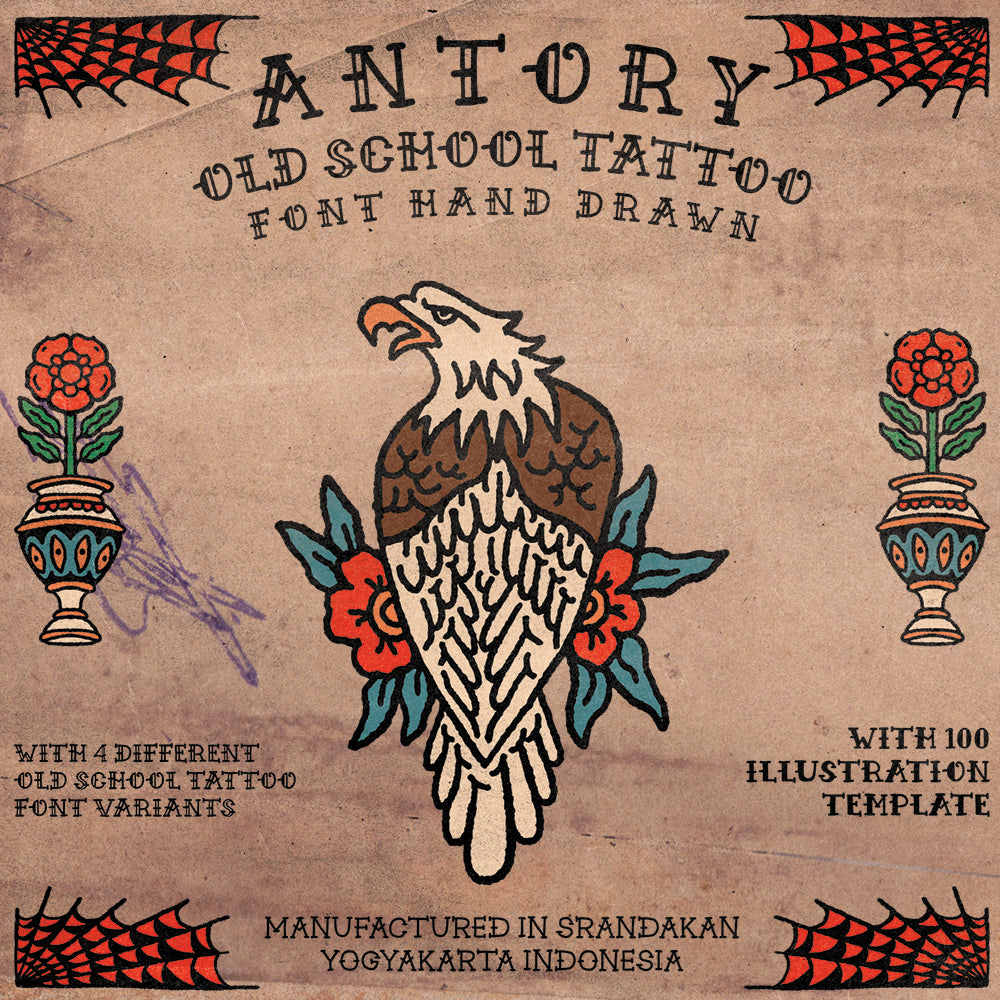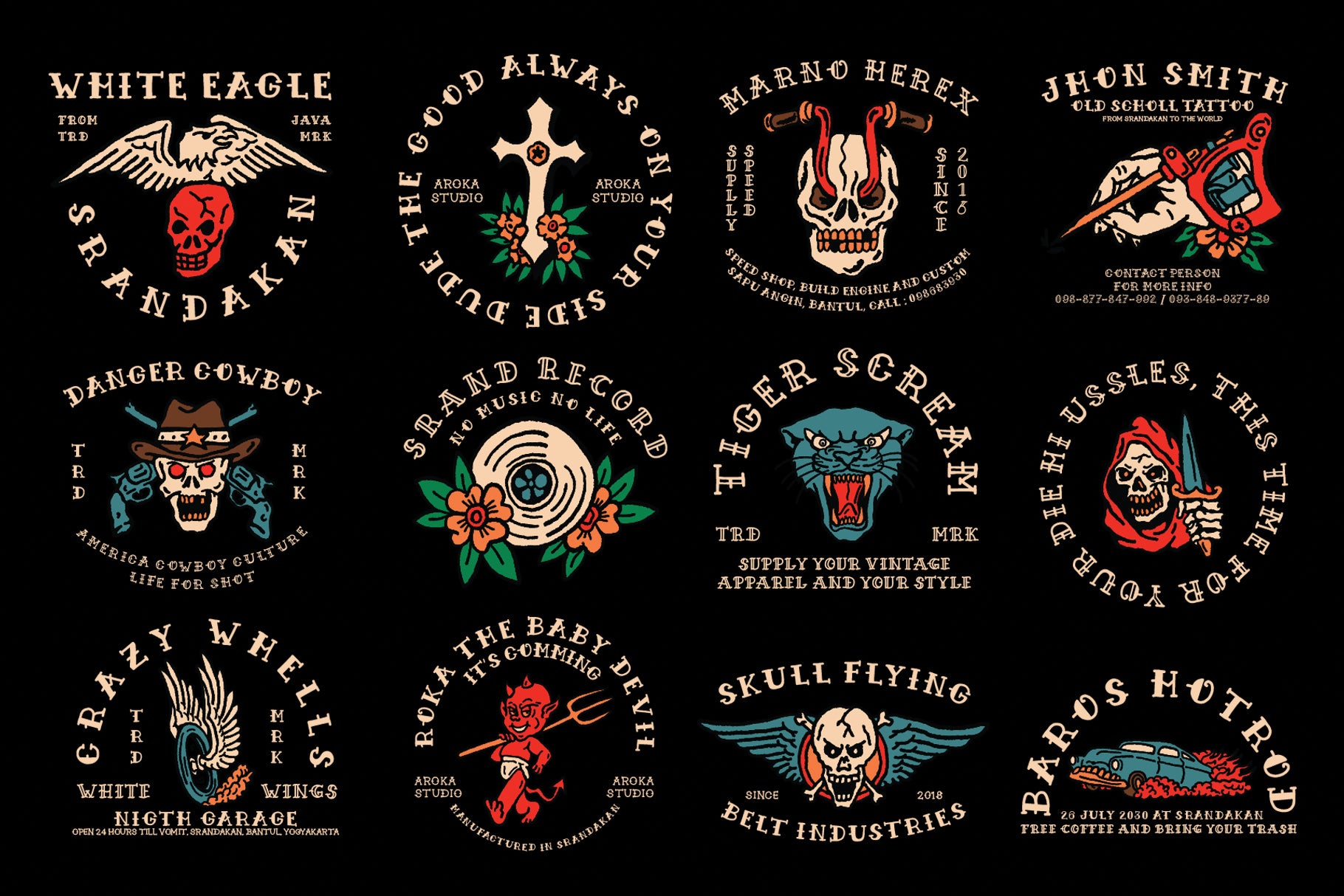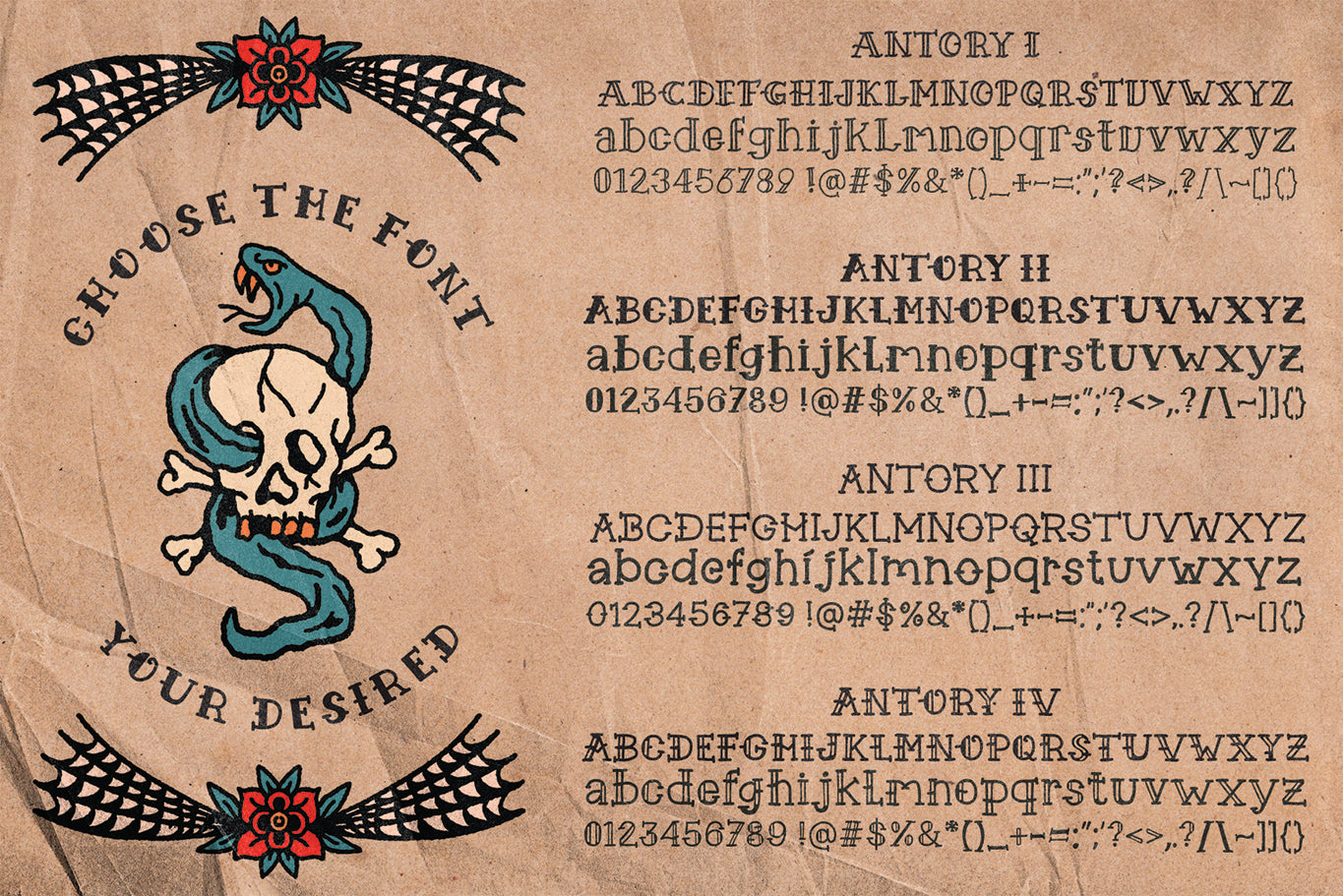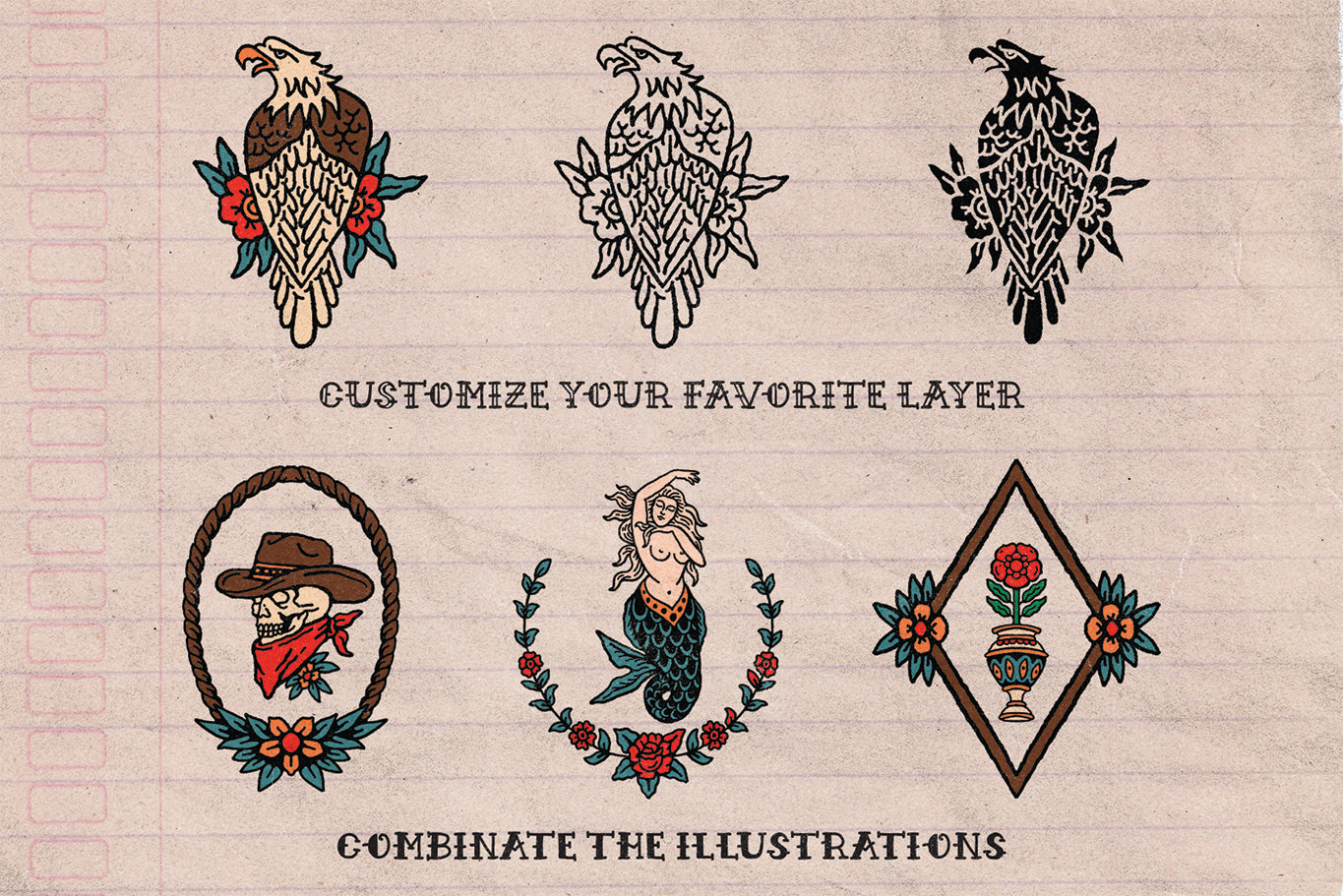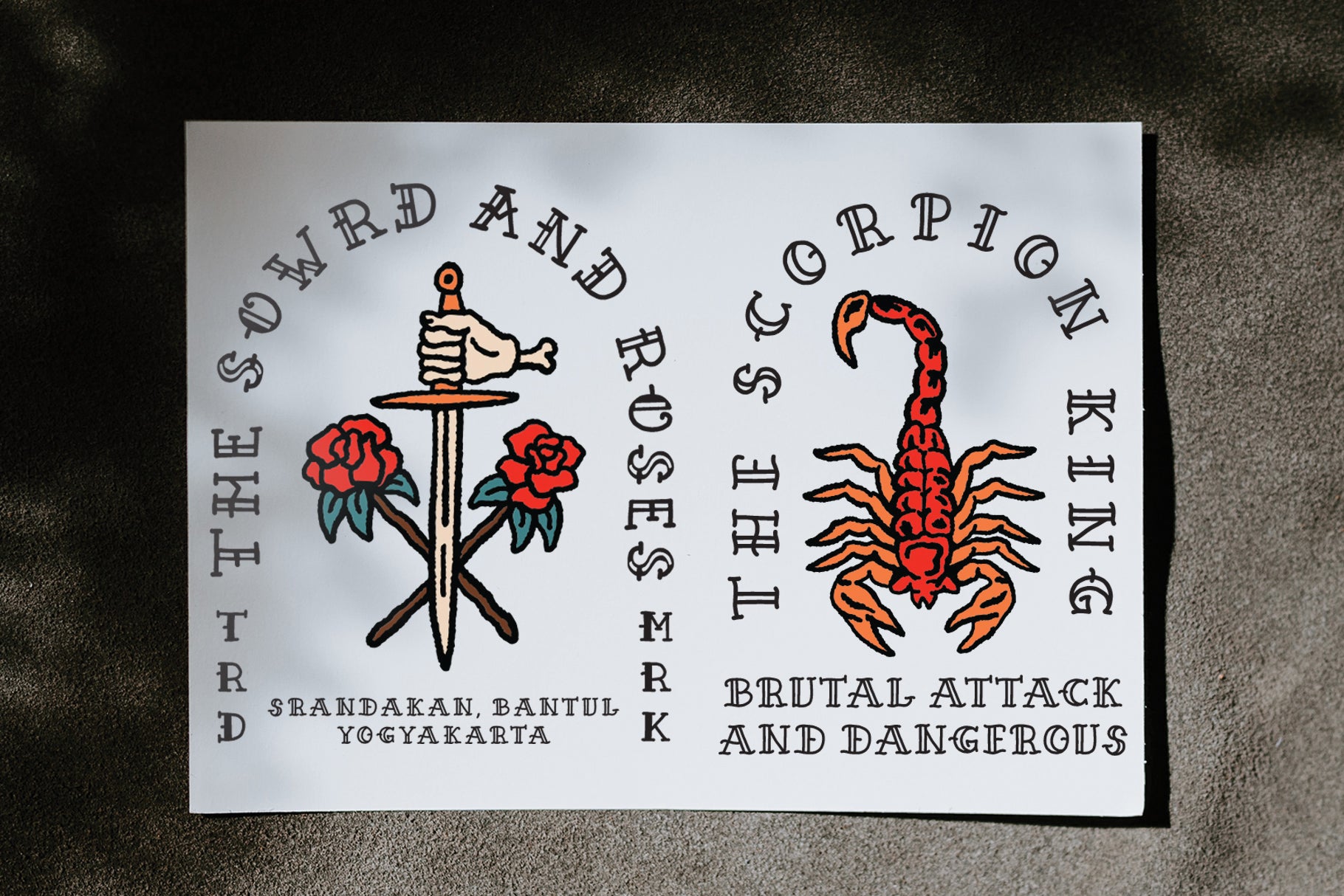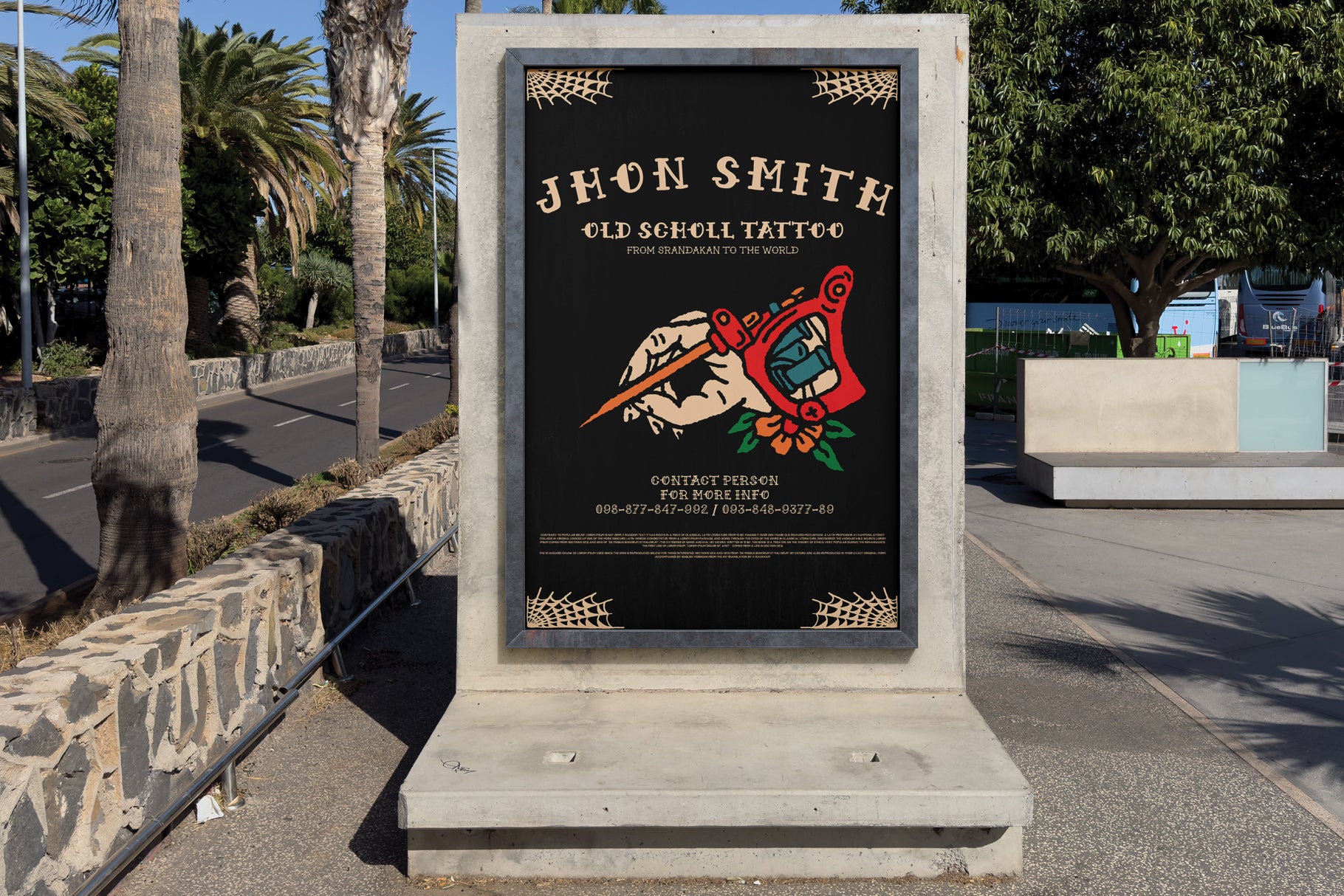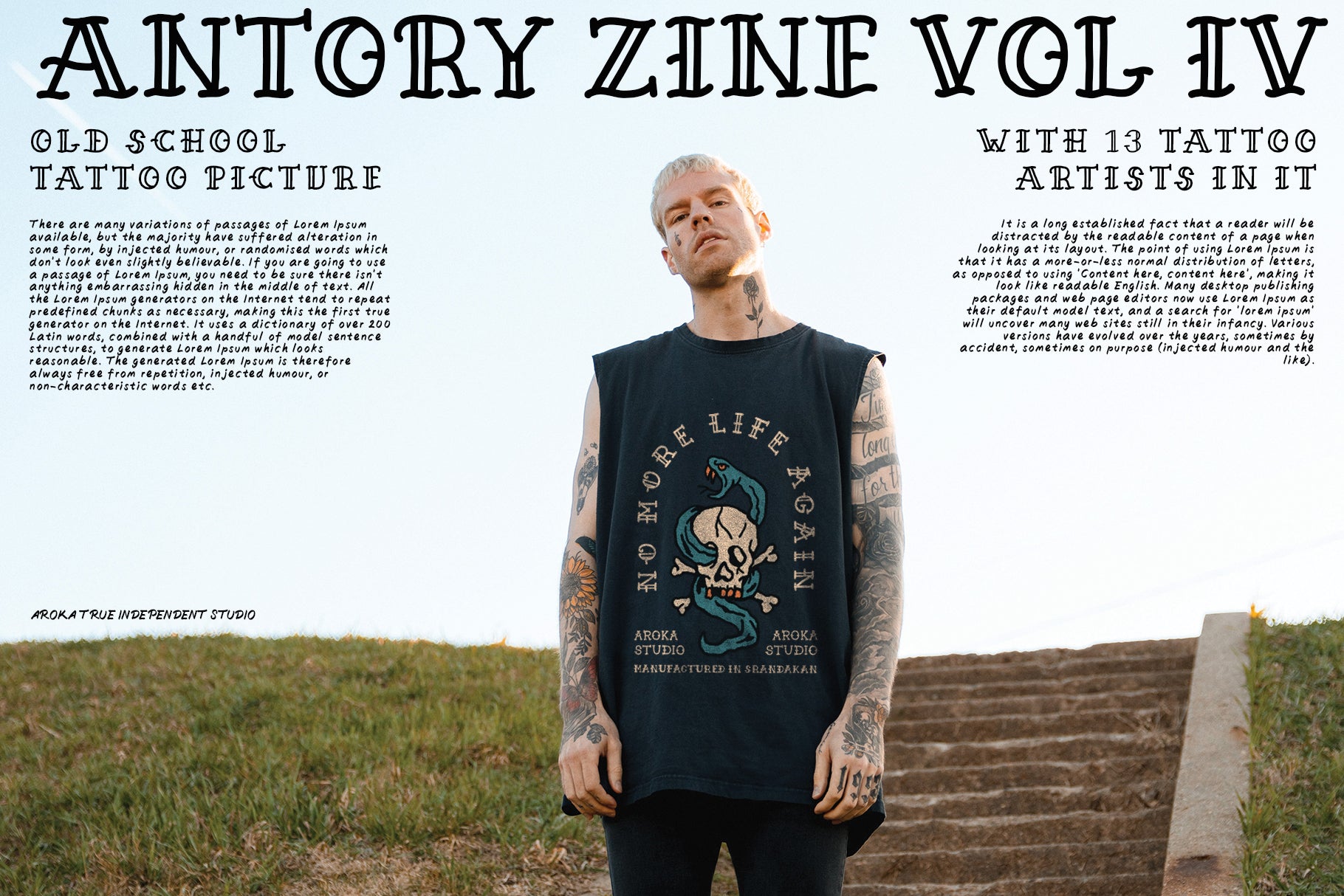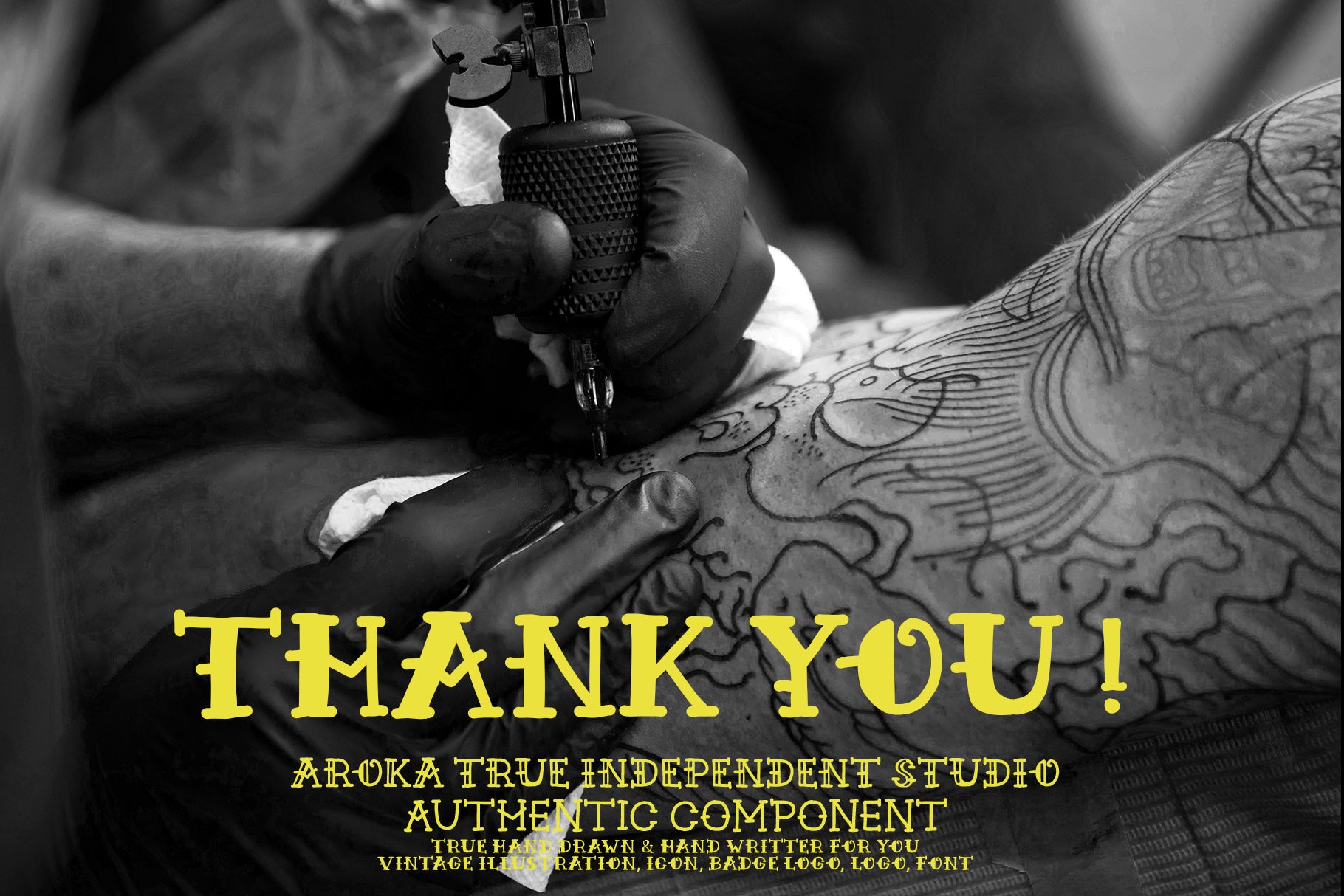
ANTORY TATTOO Hand Drawn Font
With four different old-school tattoo fonts, each illustration comes with over 100 templates, making it easy to edit in vector, Adobe Illustration, PNG, and PDF formats.
The ANTORY TATTOO Hand Drawn Font includes four distinct old-school tattoo fonts, each accompanied by over 100 editable templates available in vector, Adobe Illustrator, PNG, and PDF formats. The fonts and illustrations can be customized to meet specific design needs.